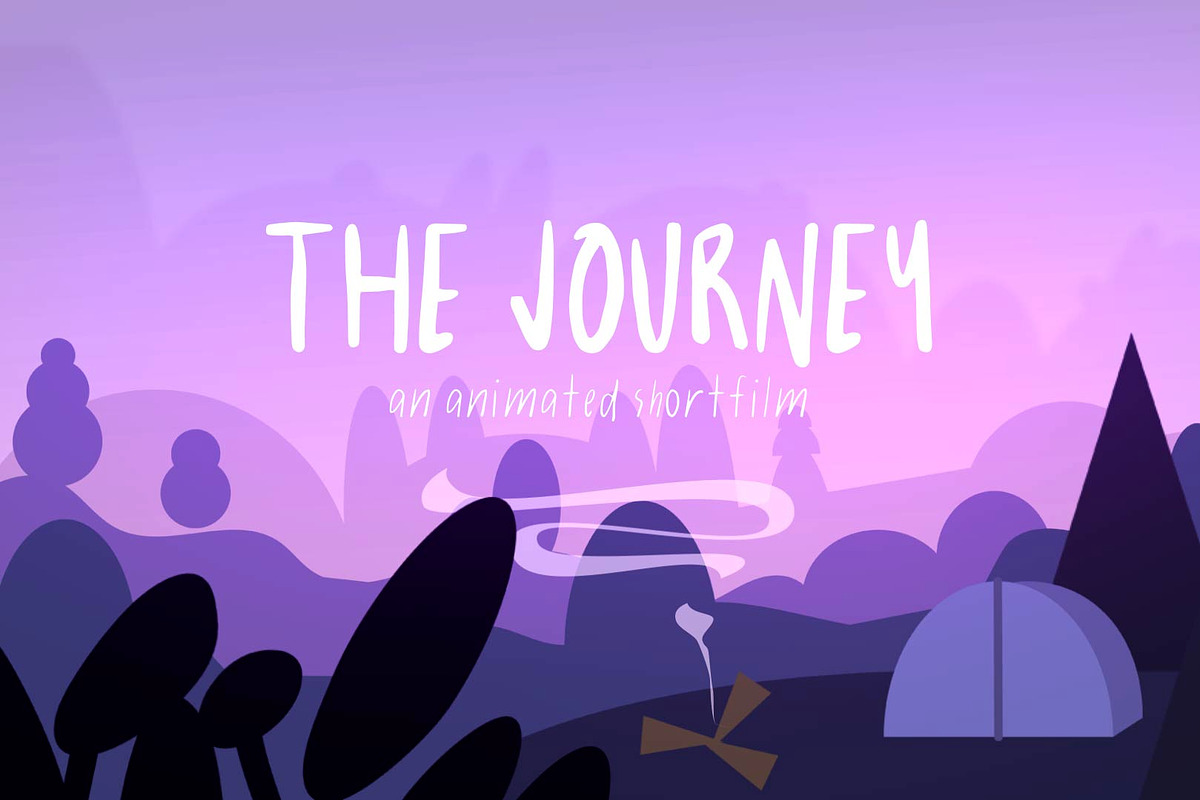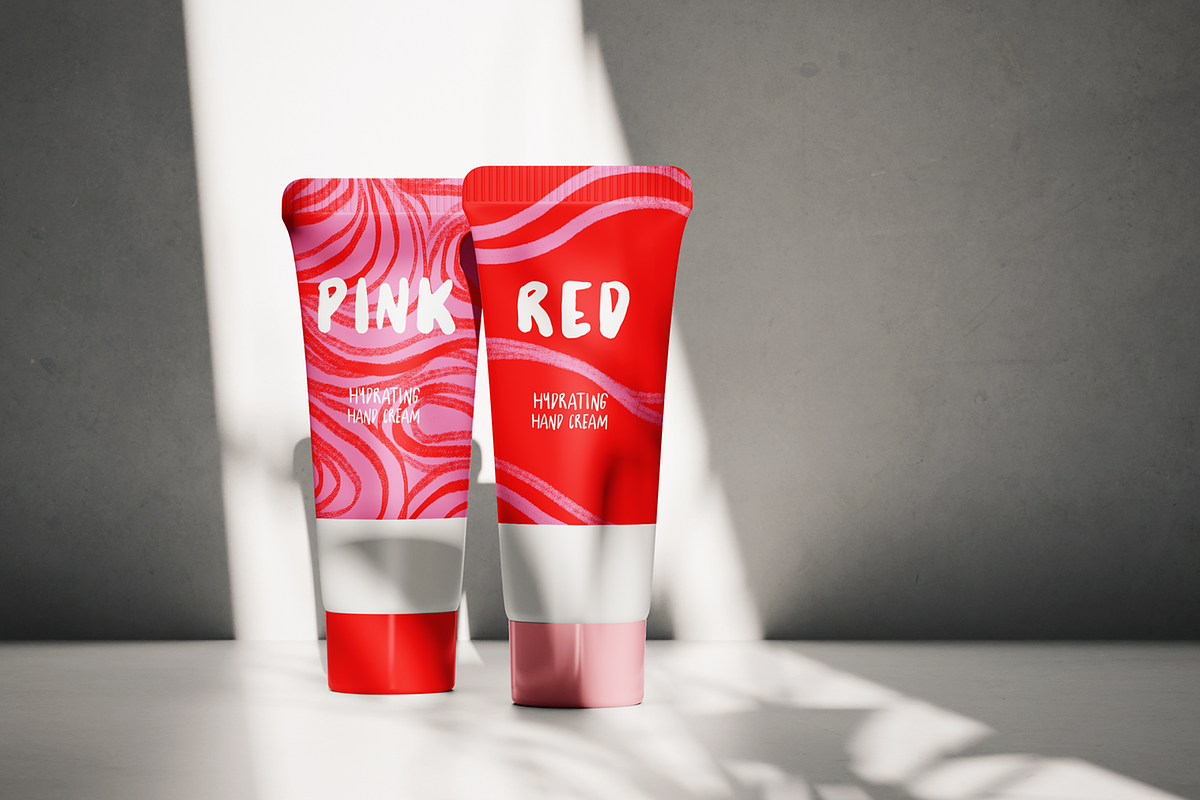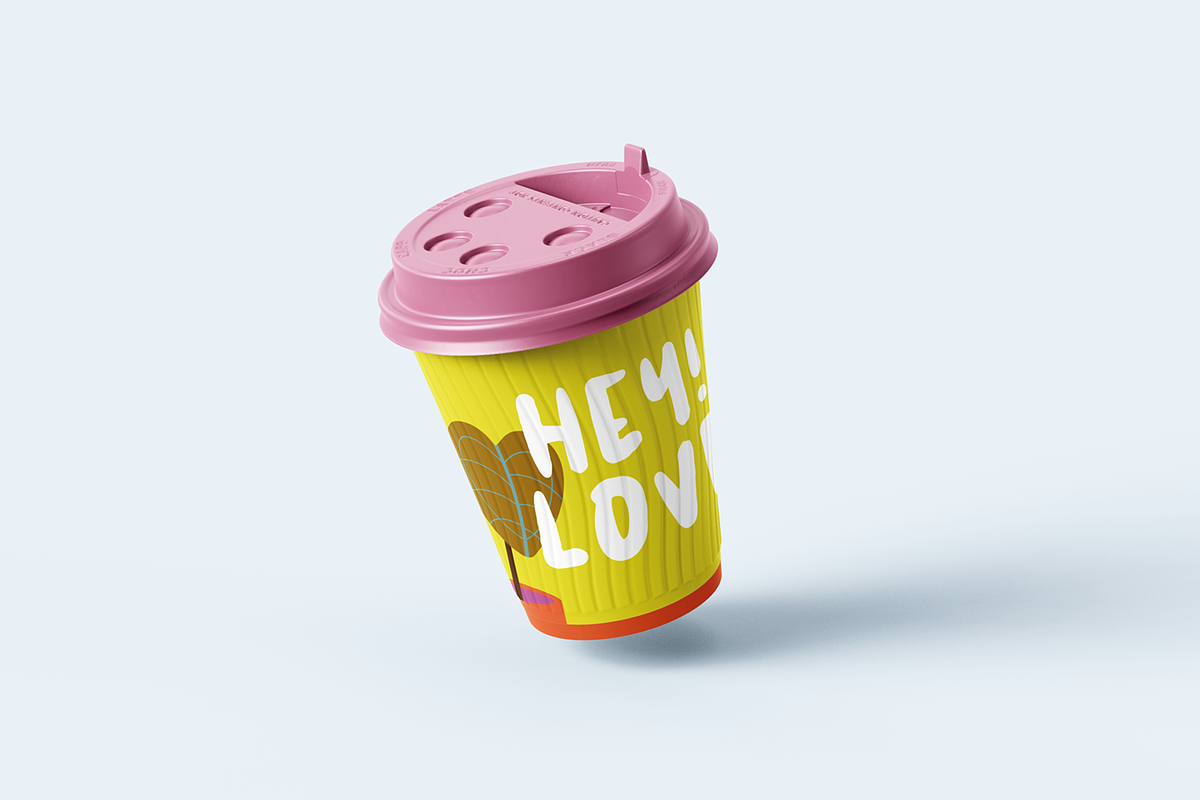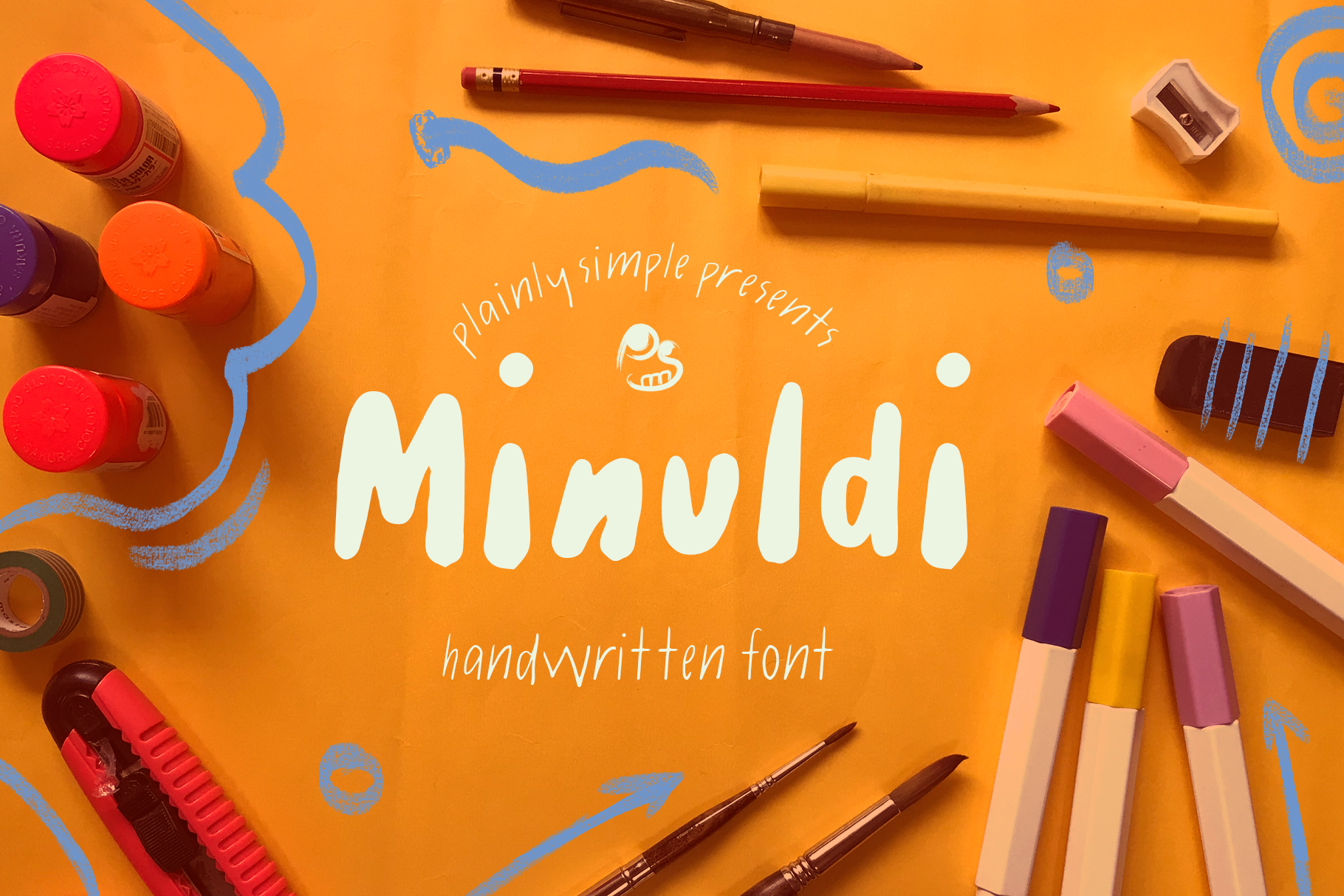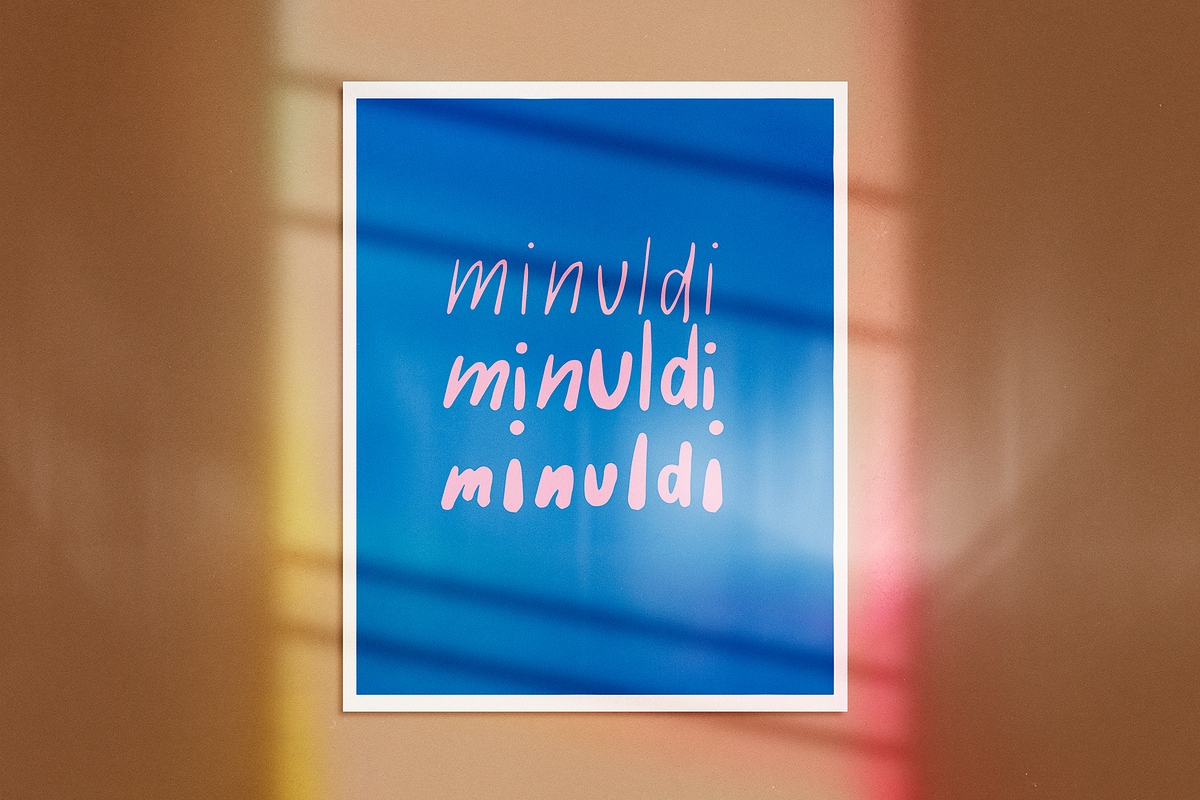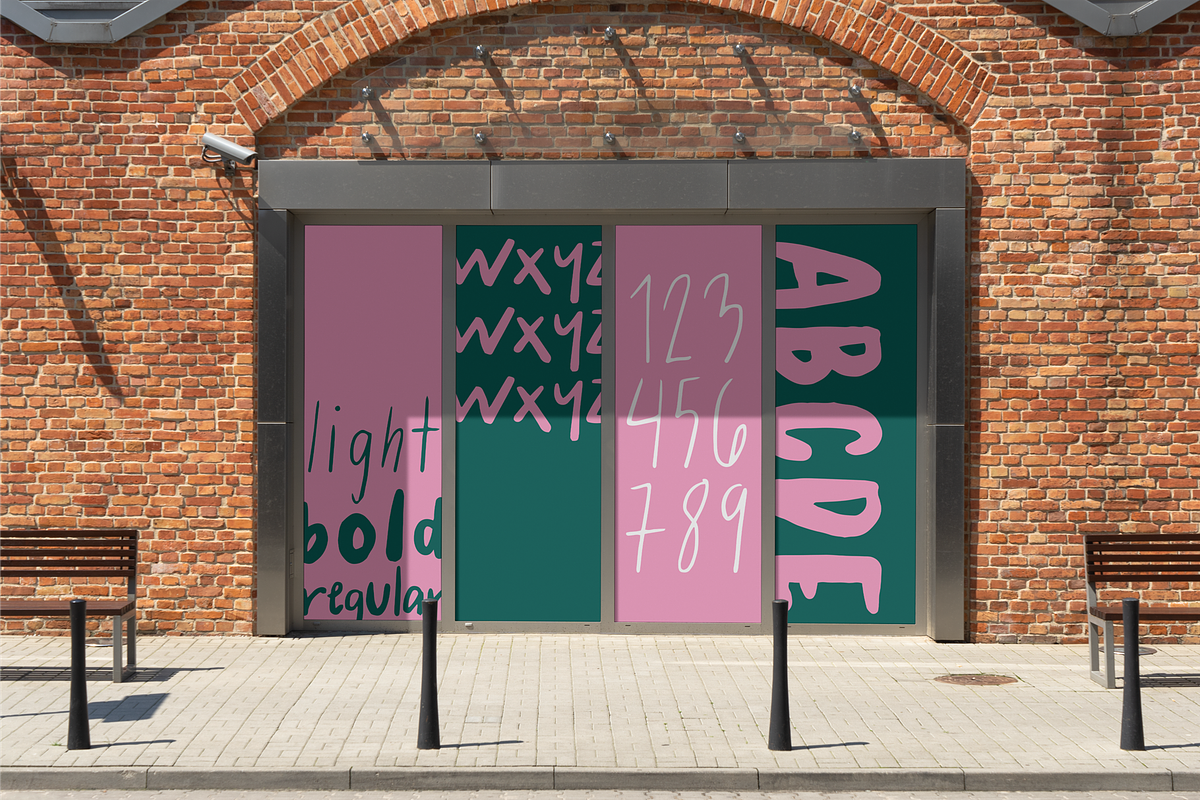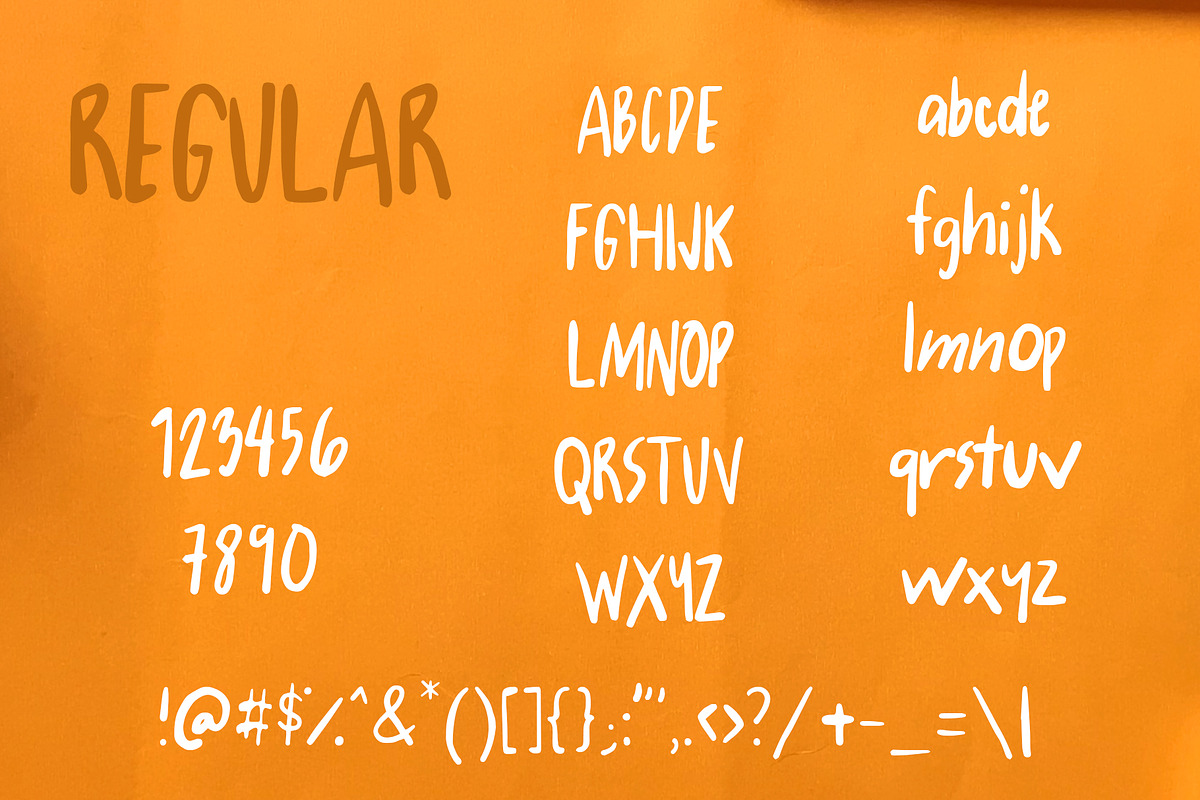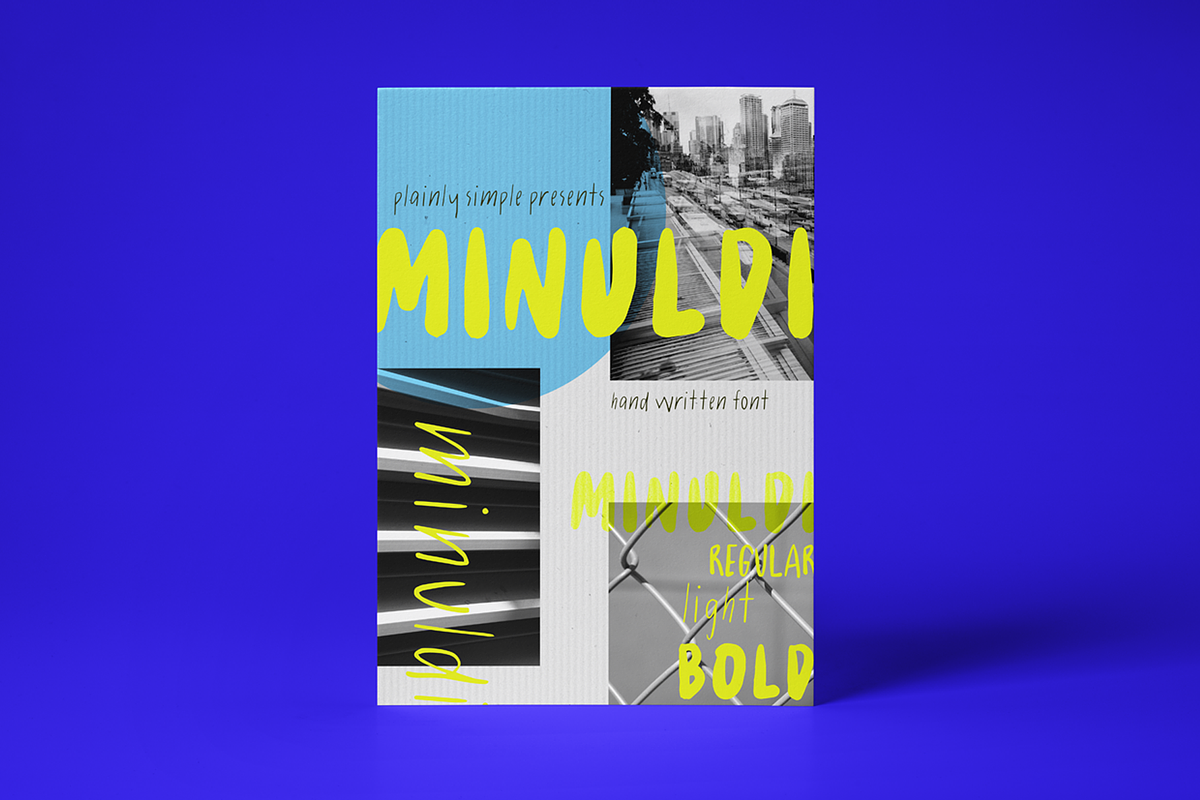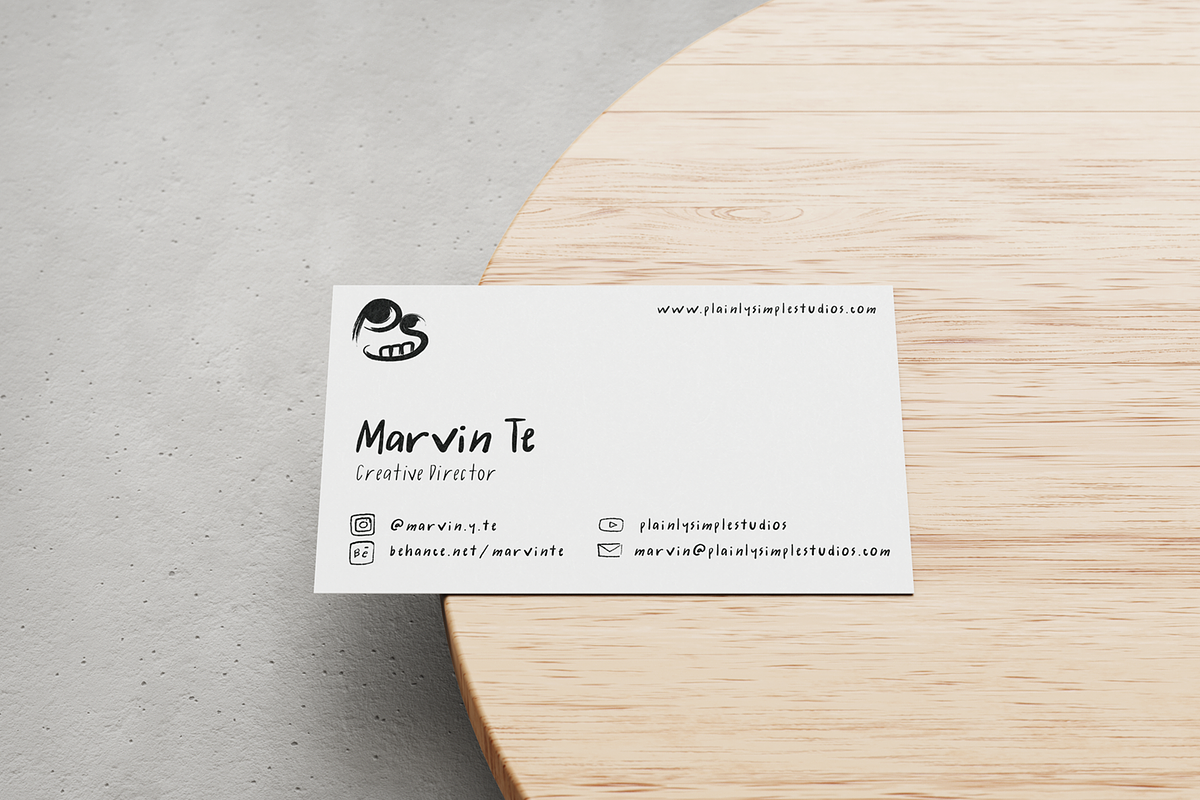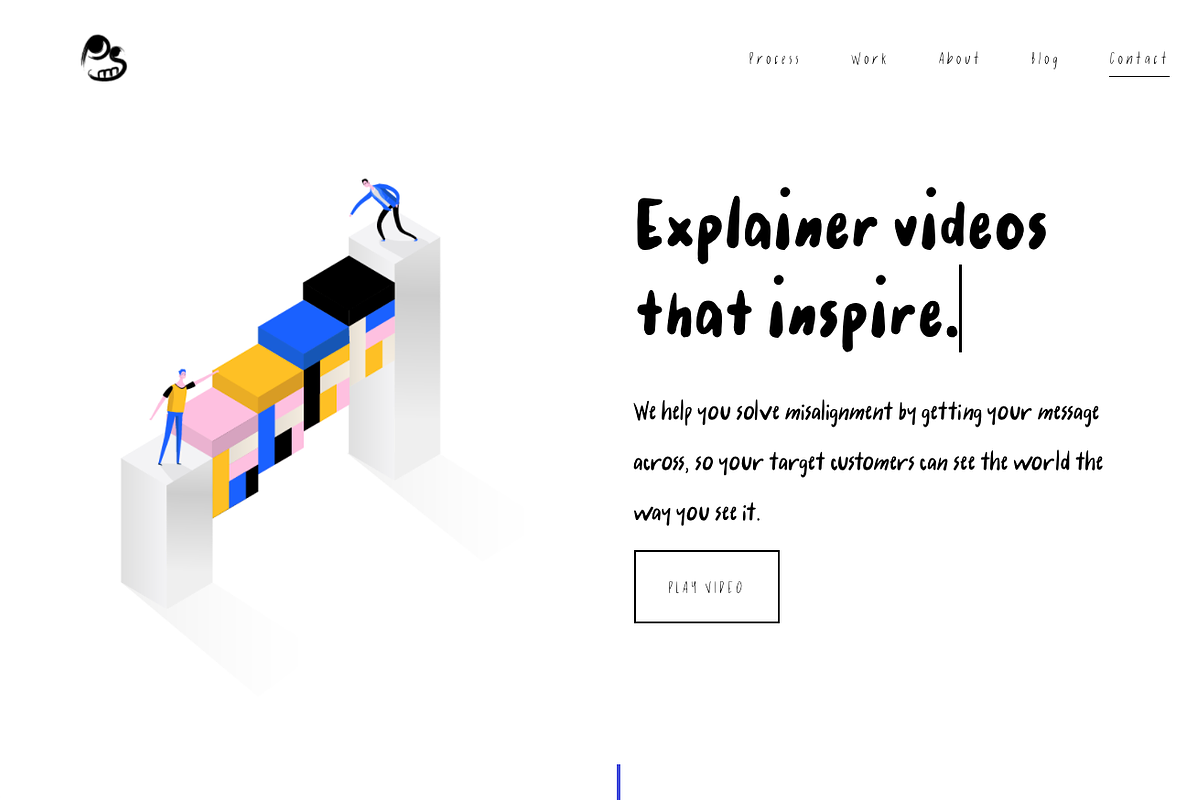
Minuldi - A Handwritten Font
So a little bit of back story first. We've just rebranded our studio. We wanted a look and feel that feels like us. And we've found ourselves always writing by hand most of our copy like YouTube covers, etc. So we've thought, why not make a handwritten font? So here we are. Megg, our lead designer, designed this font for our branding, but we'd like to share. So now, you can use this too.
Where can this font be used?
- explainer videos
- short films
- titles
- calling cards
- posters
- restaurant menu